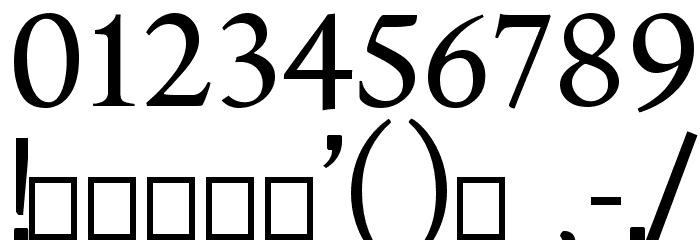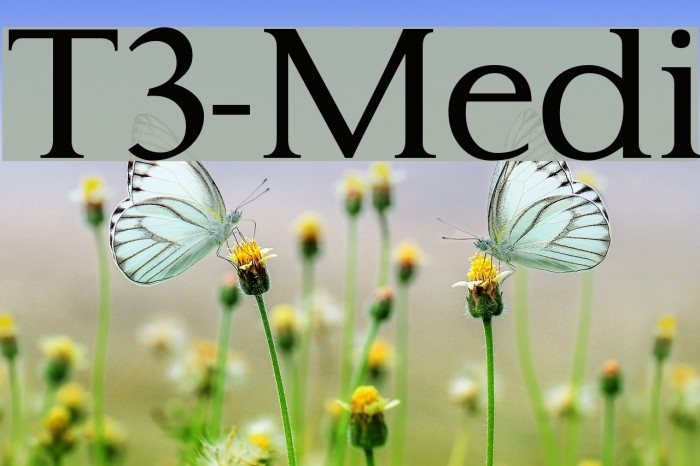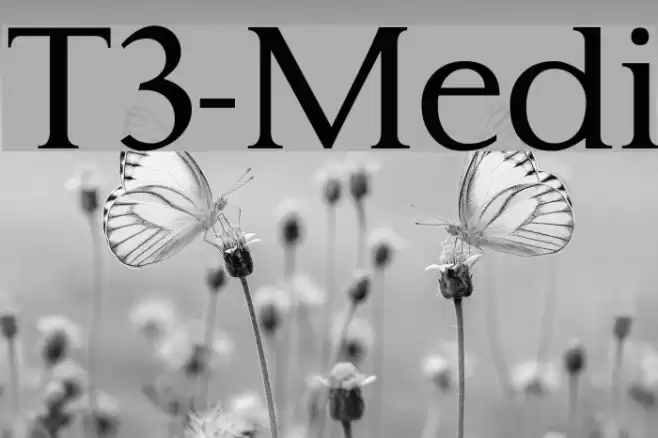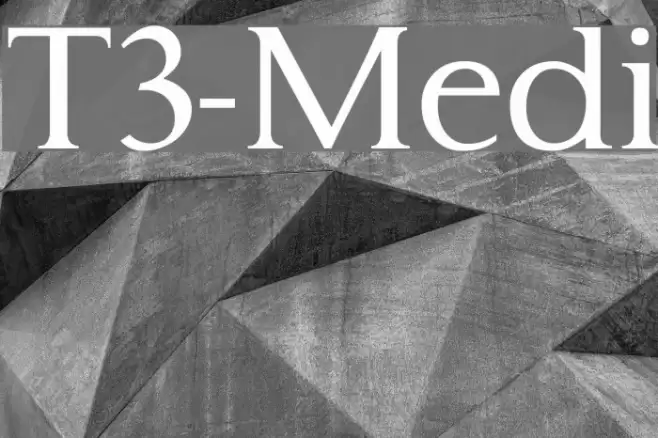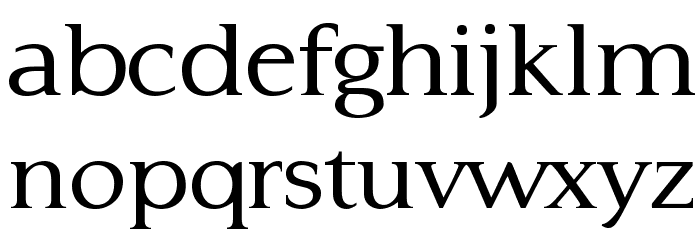
Typo3-Medium Font
✎ Serif
Typo3-Medium Description
This typeface presents a classic serif style with a modern twist, characterized by its elegant and refined letterforms. The uppercase letters exhibit a strong presence with balanced proportions, while the lowercase letters maintain a smooth and consistent flow. The numerals are clear and legible, making them suitable for various applications. The special characters are well-integrated, providing a cohesive look across the font. Overall, the font combines traditional serif elements with a contemporary aesthetic, making it versatile for both print and digital media.
| Categories | Serif |
| Overall Style | Classic |
| Use Case | Headlines, Body text, Logos |
| Proposed Projects | Ideal for editorial design, book covers, branding, and formal invitations. |